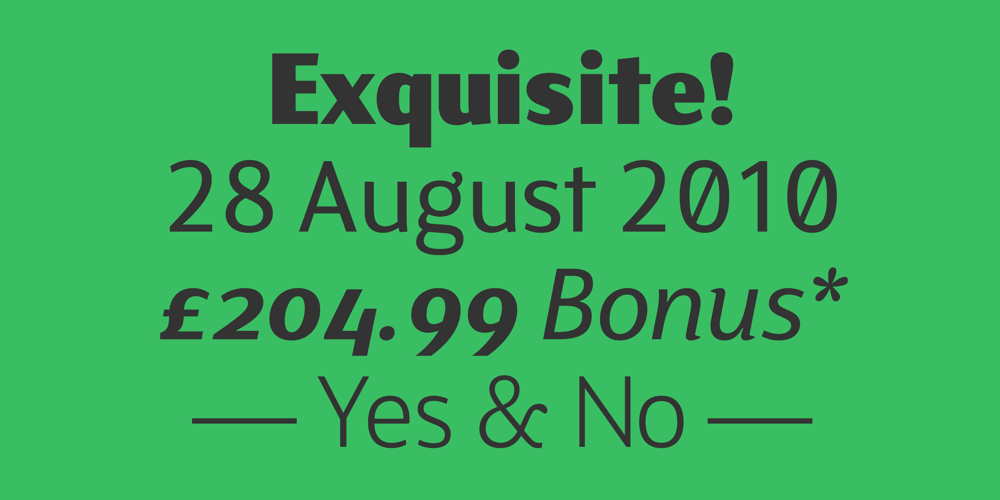
FS Blake Font Family was designed by Emanuela Conidi and published by Fontsmith. FS Blake contains 8 styles and family package options. Art decoThe inspiration for FS Blake’s elegant, lightly geometric forms can be traced back to design of the 1930s; designer Emanuela Conidi was influenced by the typography of cool, European, art deco posters.FS Blake bears traits of the art deco style, from its thin weights to its heavy weights, giving a set of faces each with their own distinct character, but still with a strong family resemblance.Mechanical typeMechanical and organic shapes combine in FS Blake to create a harmonious whole of generous curves and cursive spikes. A strong, punchy contender in display sizes, it’s also got a gentle touch with small text in lighter weights. Lively, versatile and with plenty of character contrast between weights, the FS Blake family offers impact in whatever task it’s given.faces each with their own distinct character, but still with a strong family resemblance.Sketch bookGreat fonts still emerge from a combination of hand, paper and pencil. After filling her sketch book with ideas, Emanuela and Jason extracted the elements that both felt could work in a font. The process yielded a whole crop of starting points for future designs as well as a focus for FS Blake as a striking, characterful, almost industrial font.